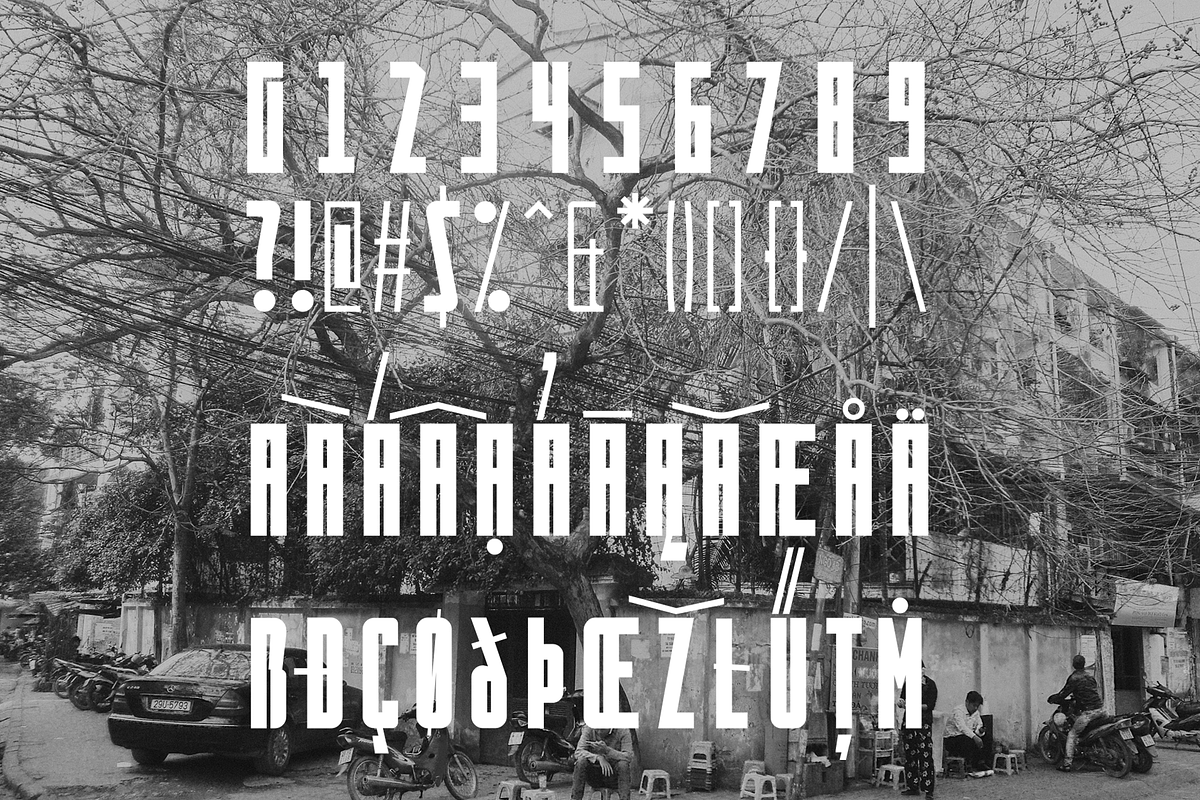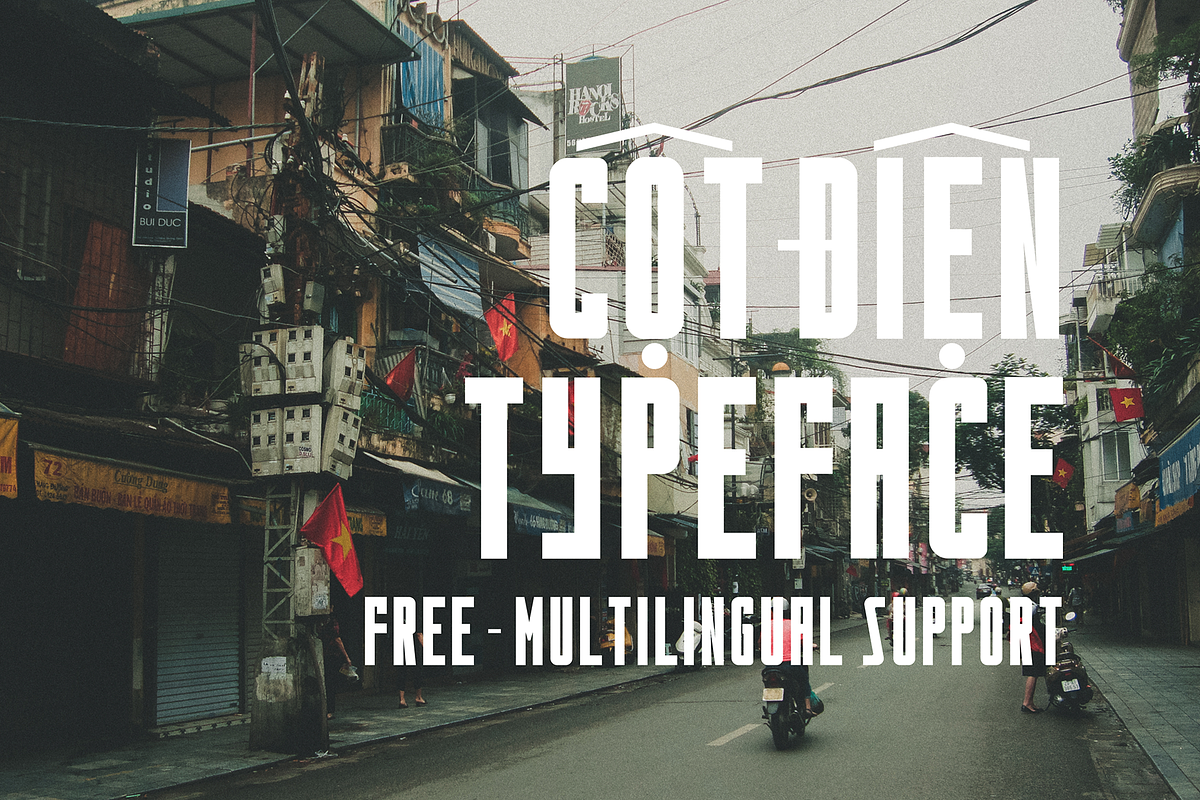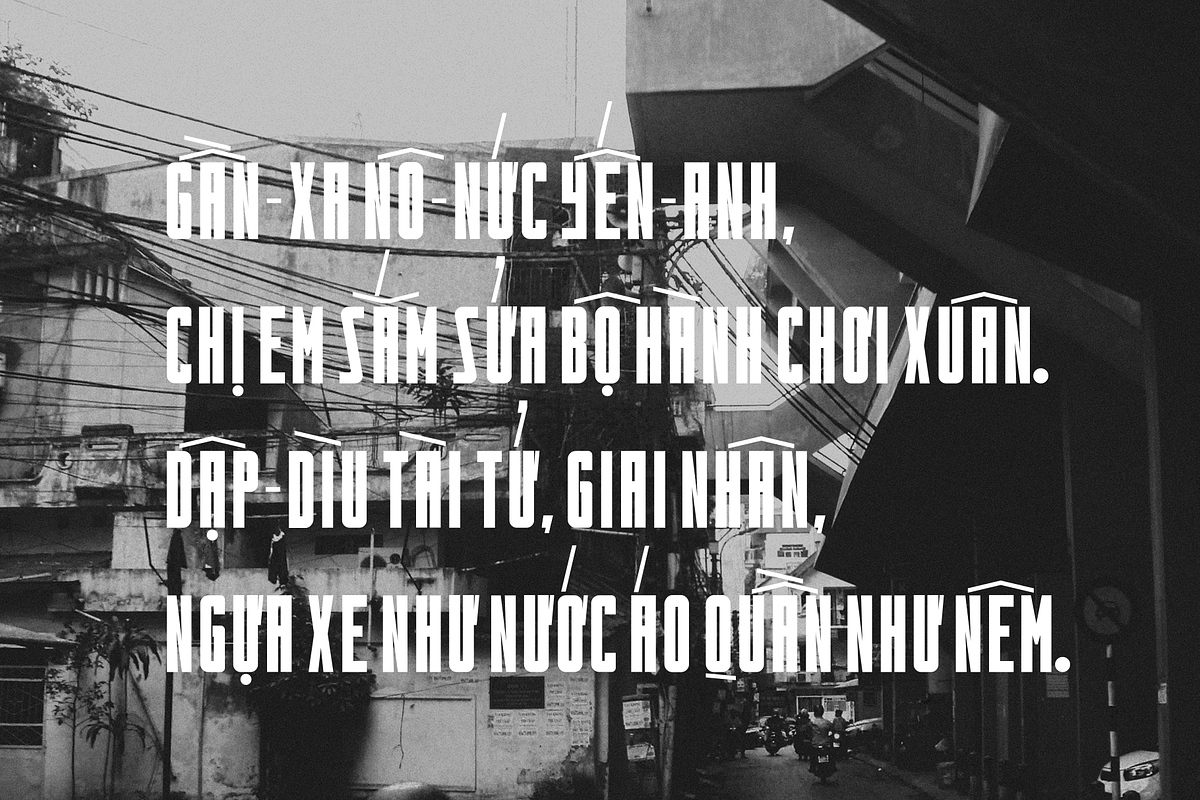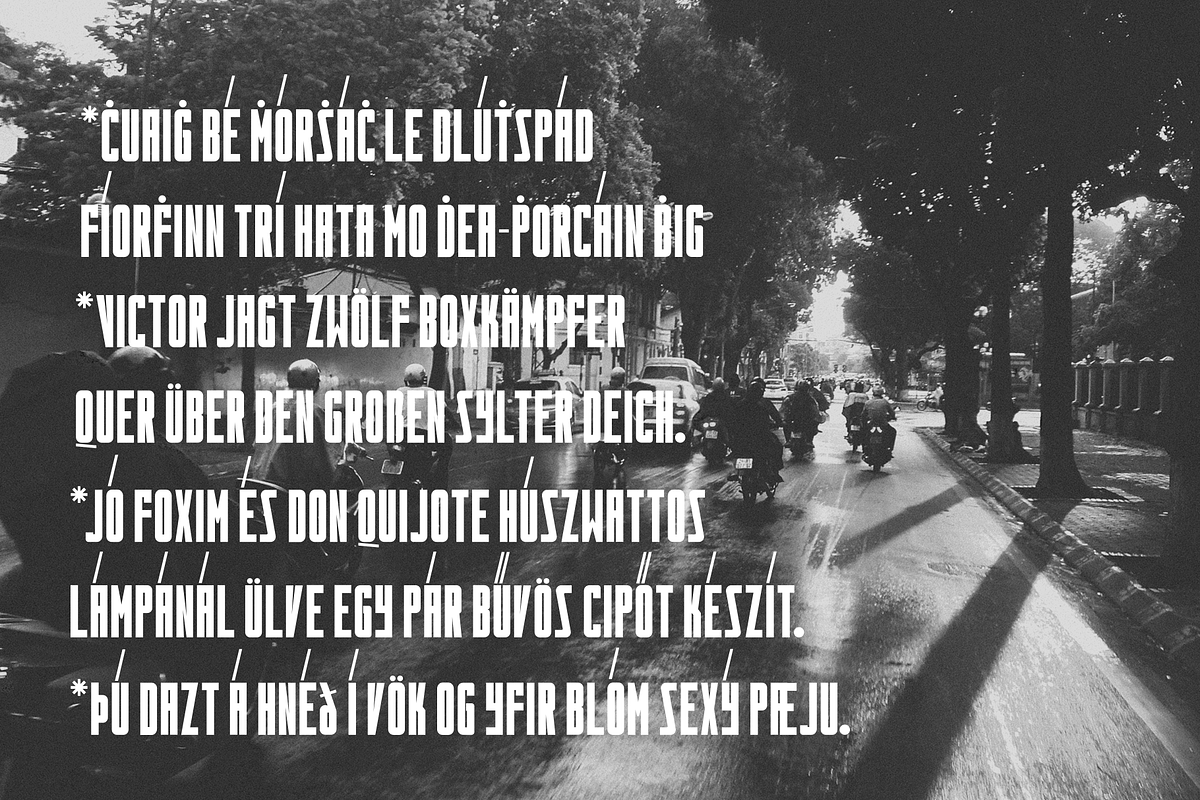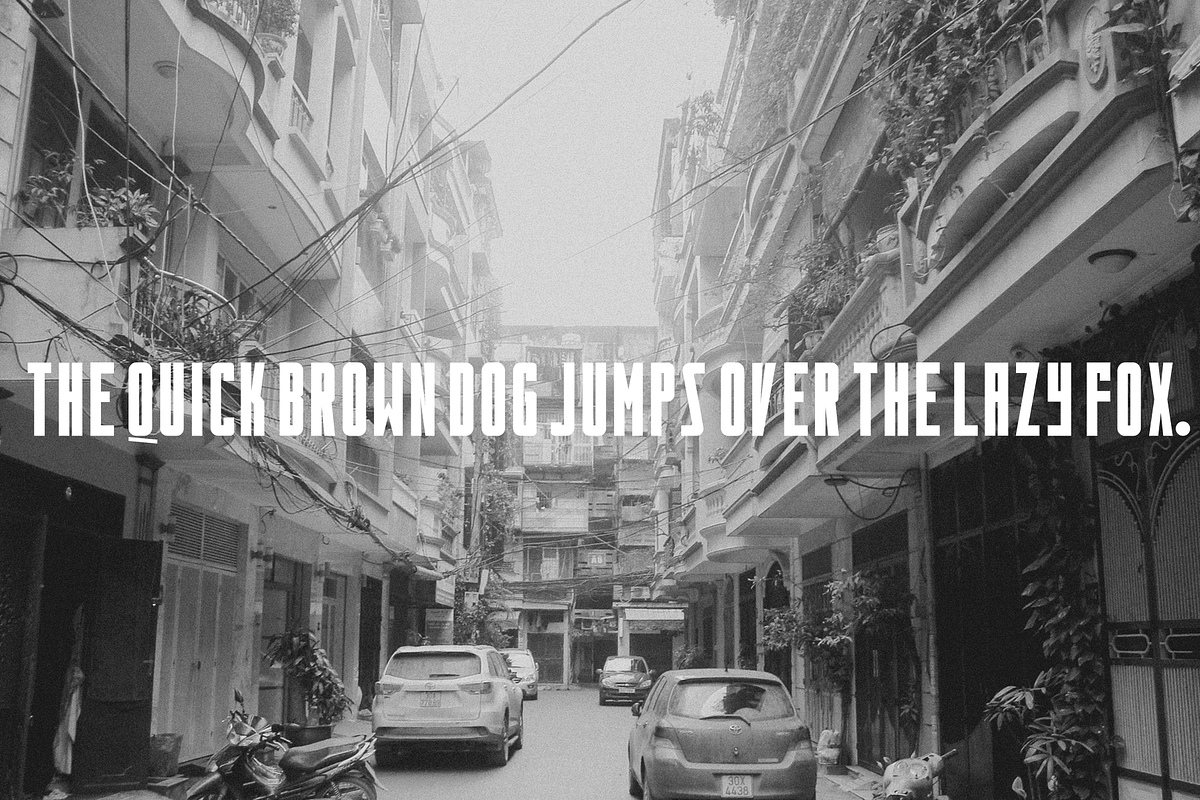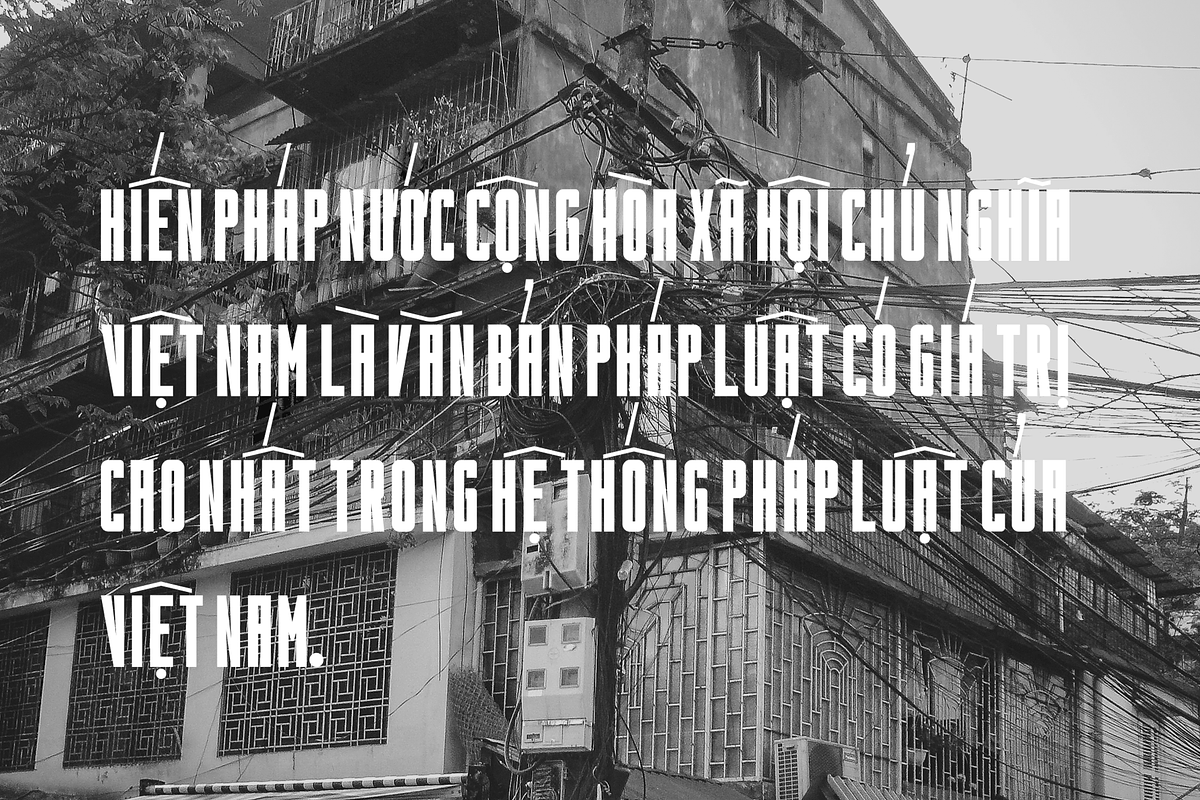
Cotdien Typeface
Cotdien Typeface by One Pillar Studio is a font selected for branding, posters, packaging, typography.
Why Cotdien Typeface is worth a look
Cotdien Typeface by One Pillar Studio fits naturally into Branding, posters, packaging, typography.